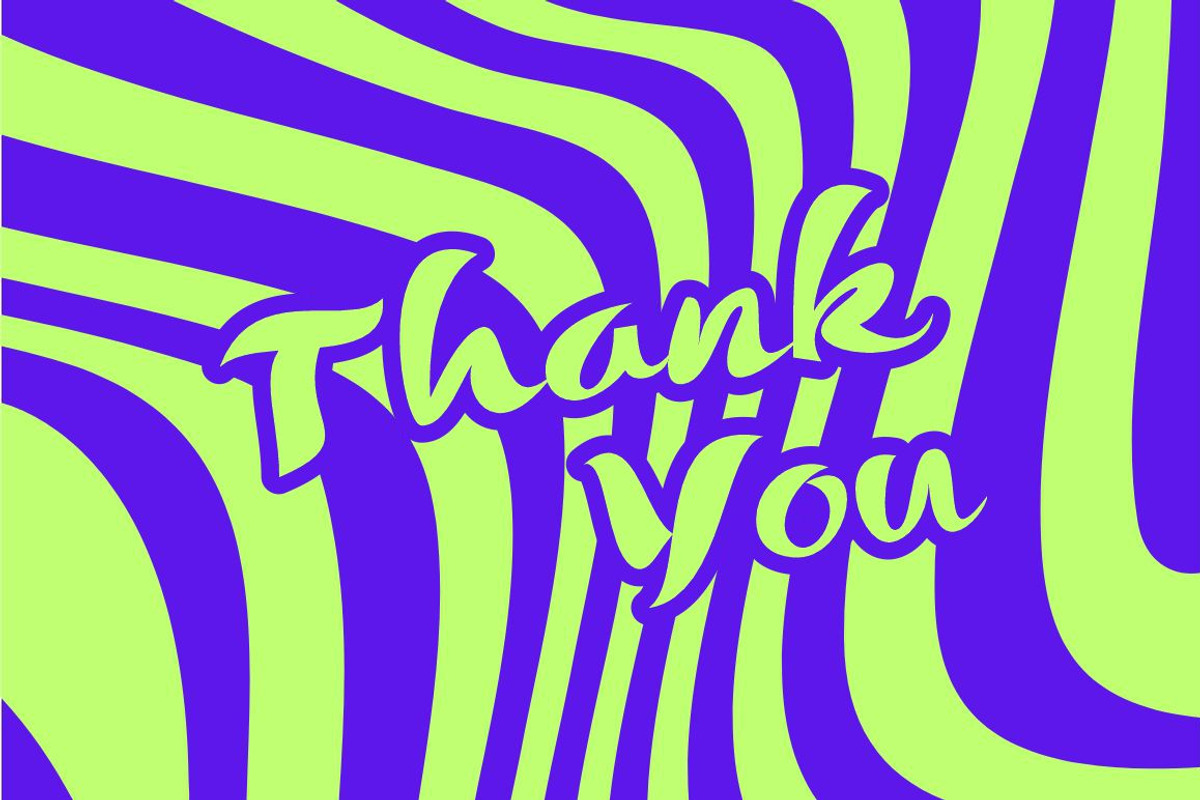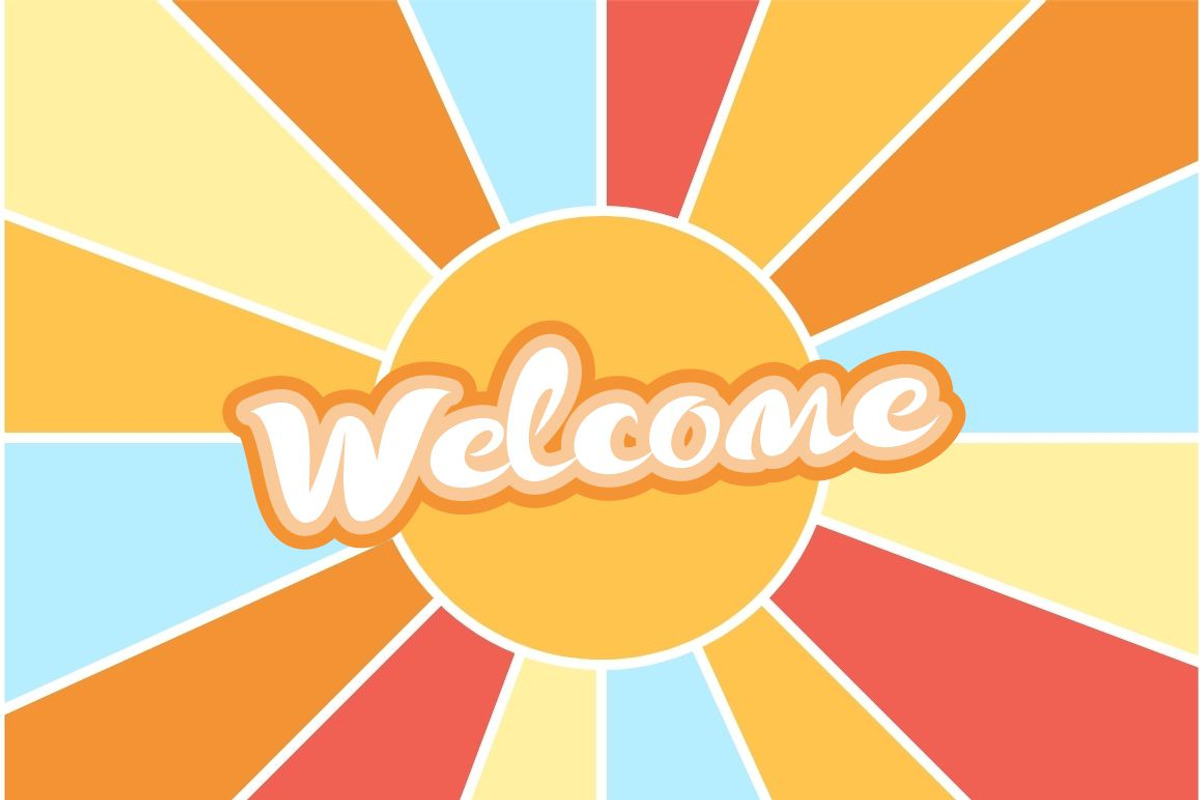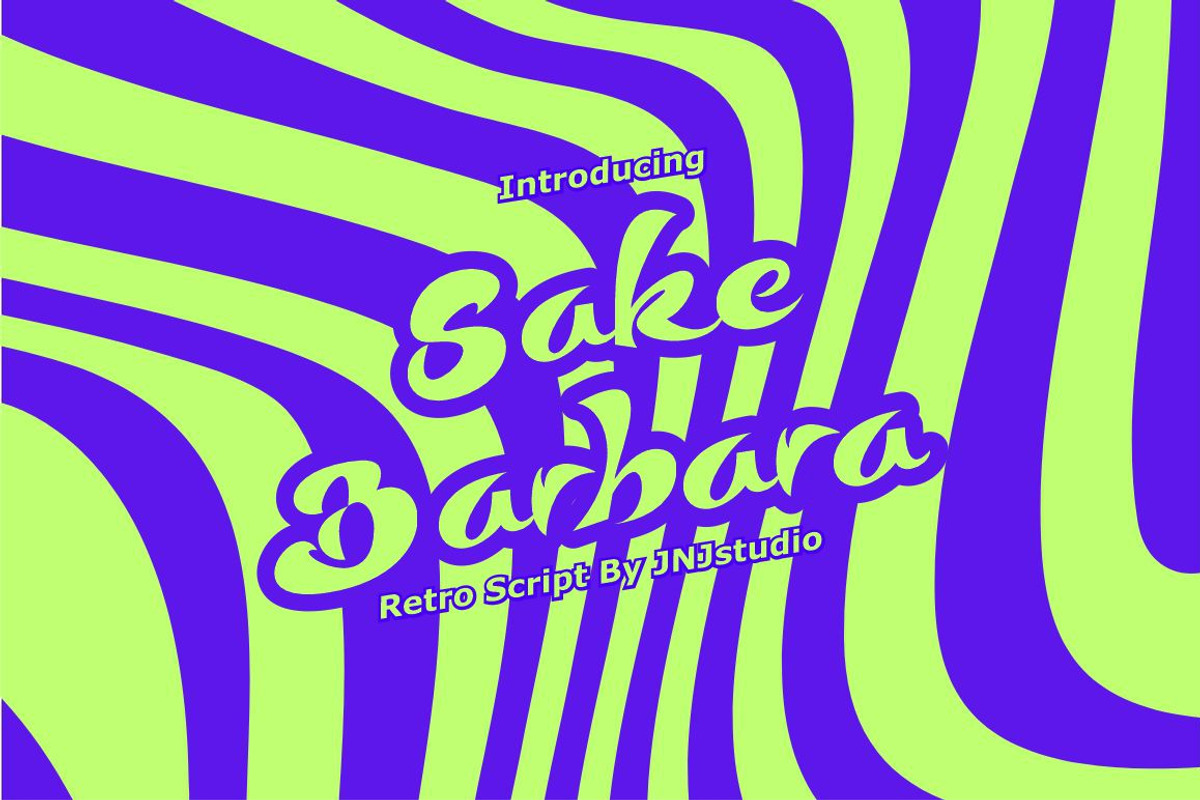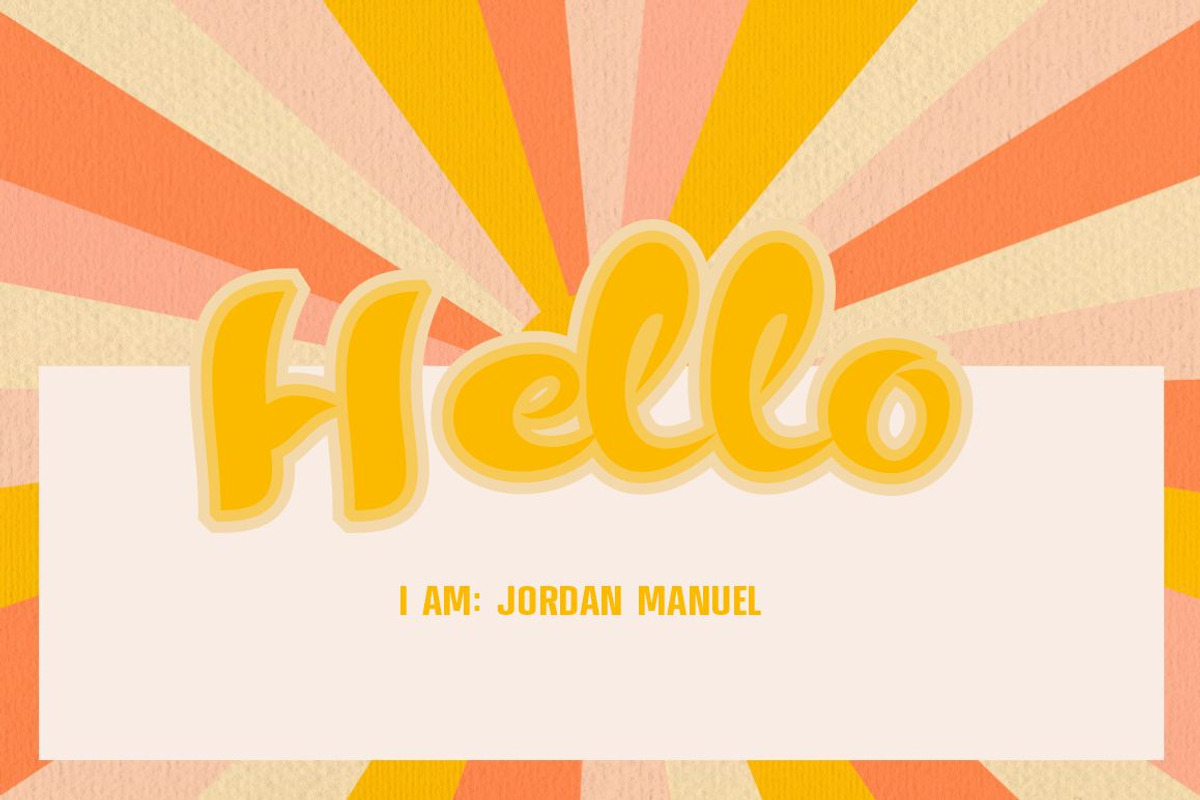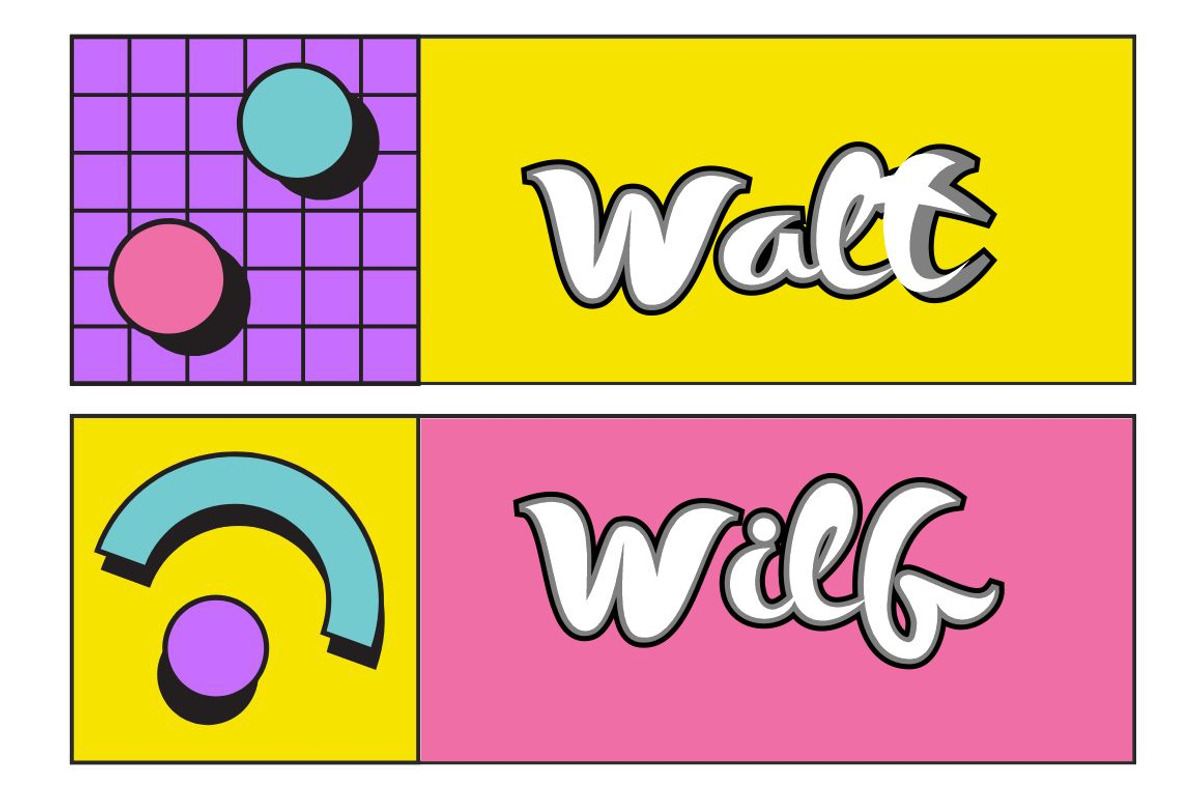
Sake Barbara Script
Introducing "Sake Barbara" is a retro script font that captures the elegance and charm of mid-20th century typography. Its flowing, hand-drawn curves evoke a nostalgic vibe, reminiscent of vintage signage, classic advertisements, and old-school packaging. The smooth, connected strokes give it a natural, fluid rhythm, while the subtle retro details bring a sense of personality and warmth.
Perfect for projects that aim to blend the past with the present, "Sake Barbara" is ideal for logos, branding, posters, and any design that needs a touch of vintage flair with a modern twist. Its playful yet sophisticated style makes it versatile for both casual and elegant designs.